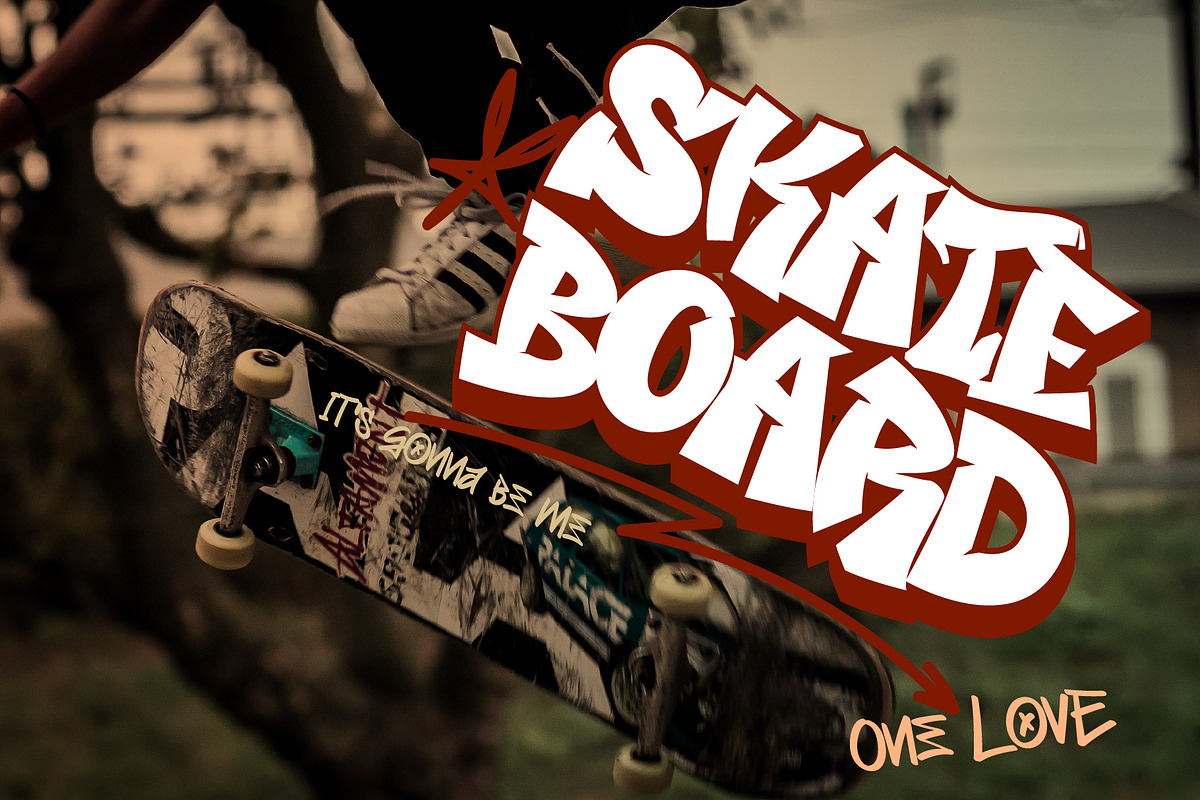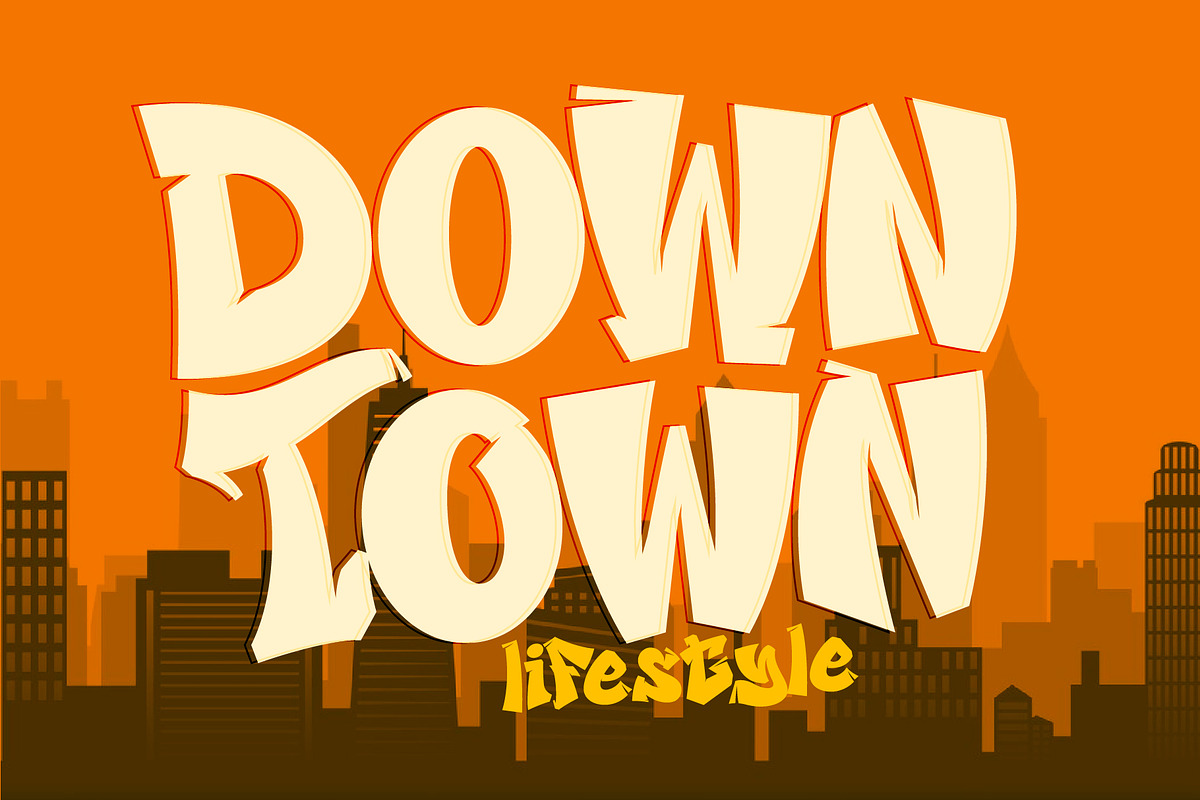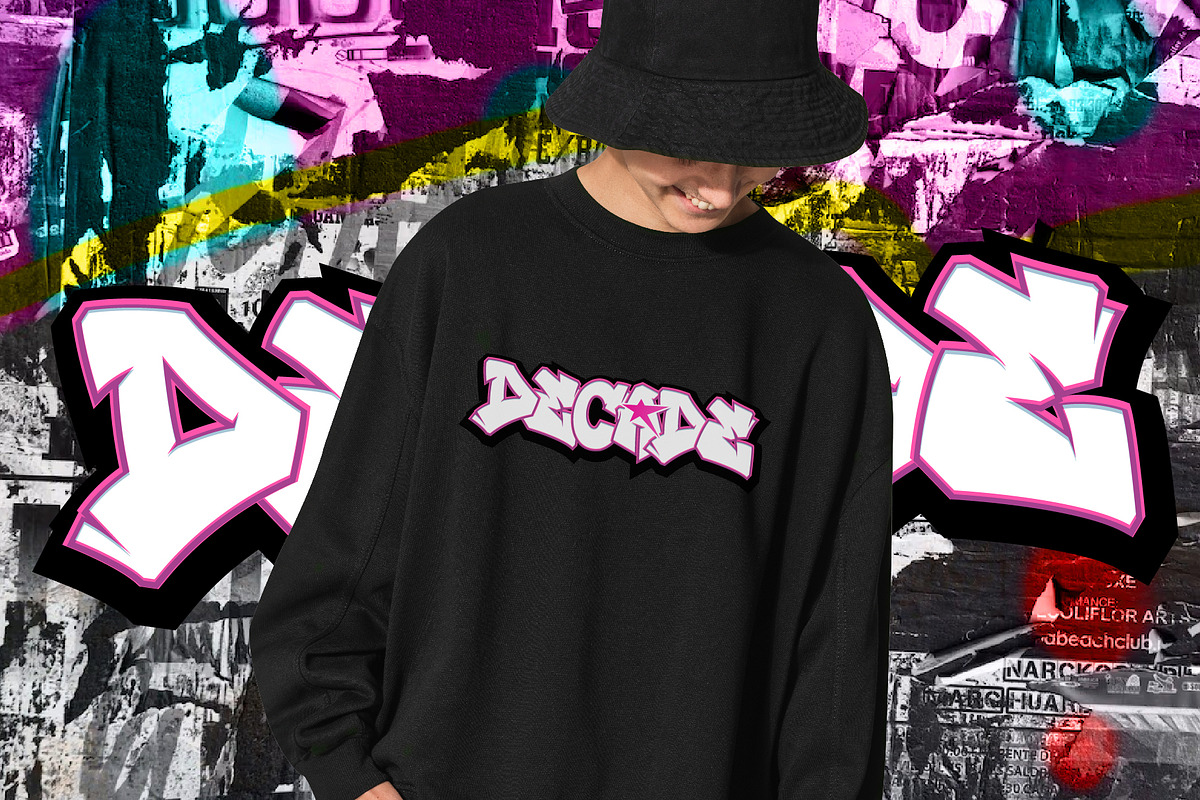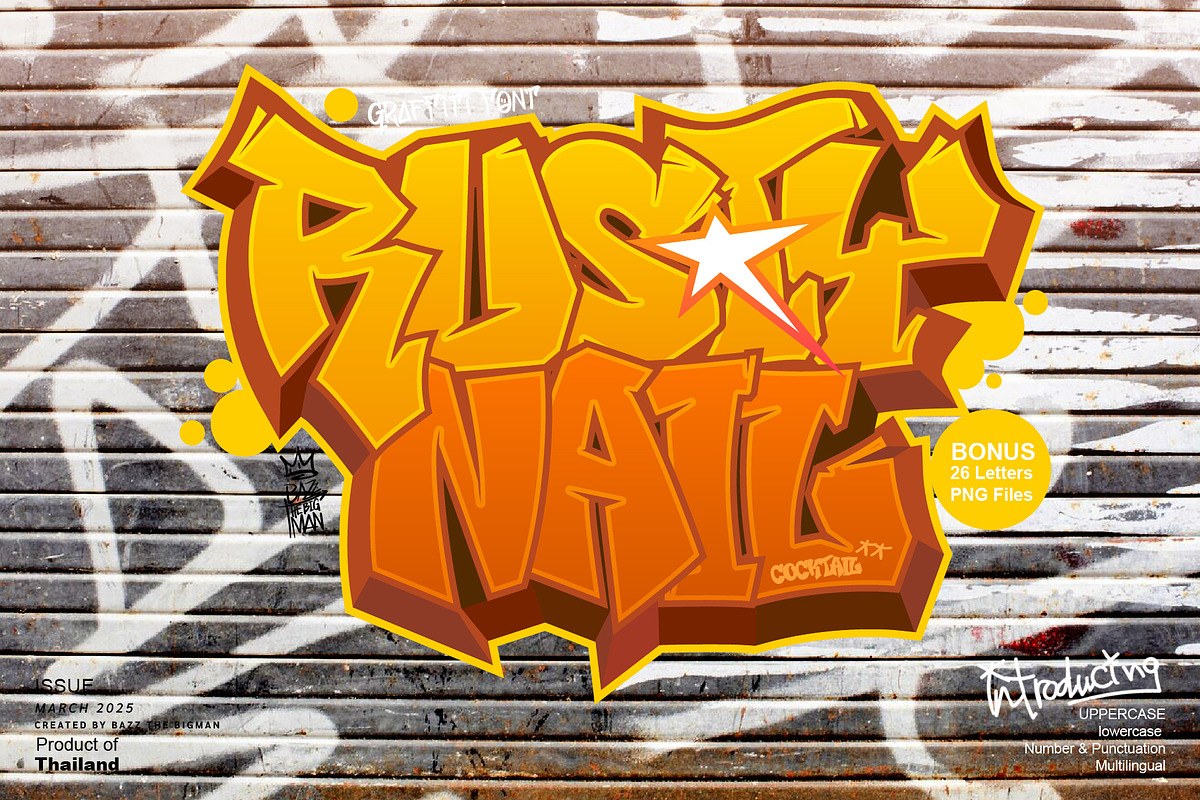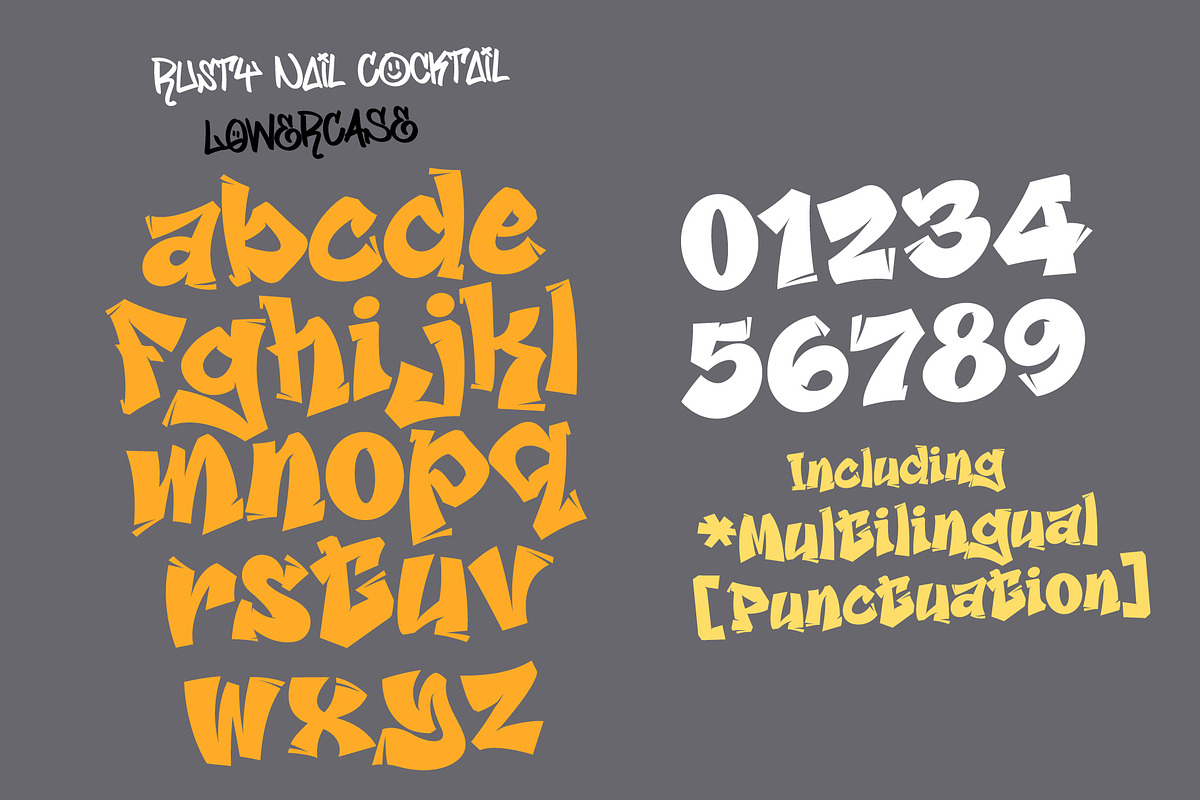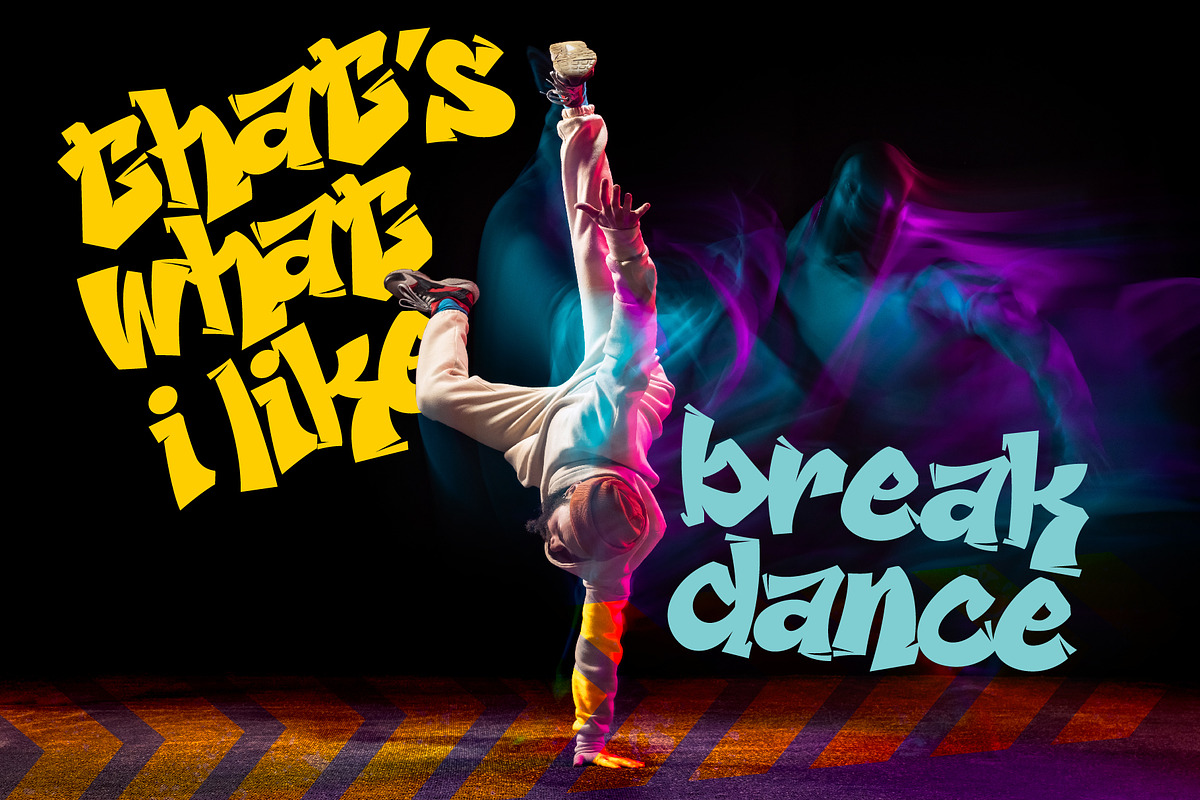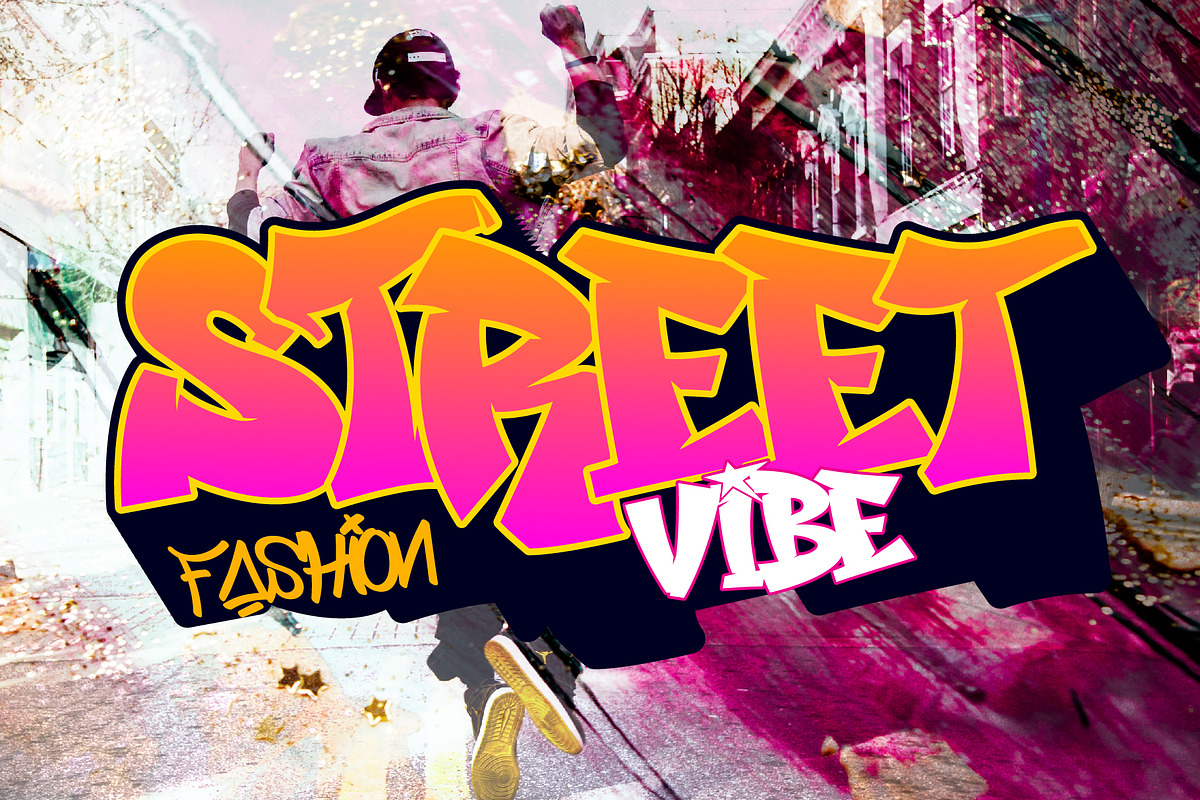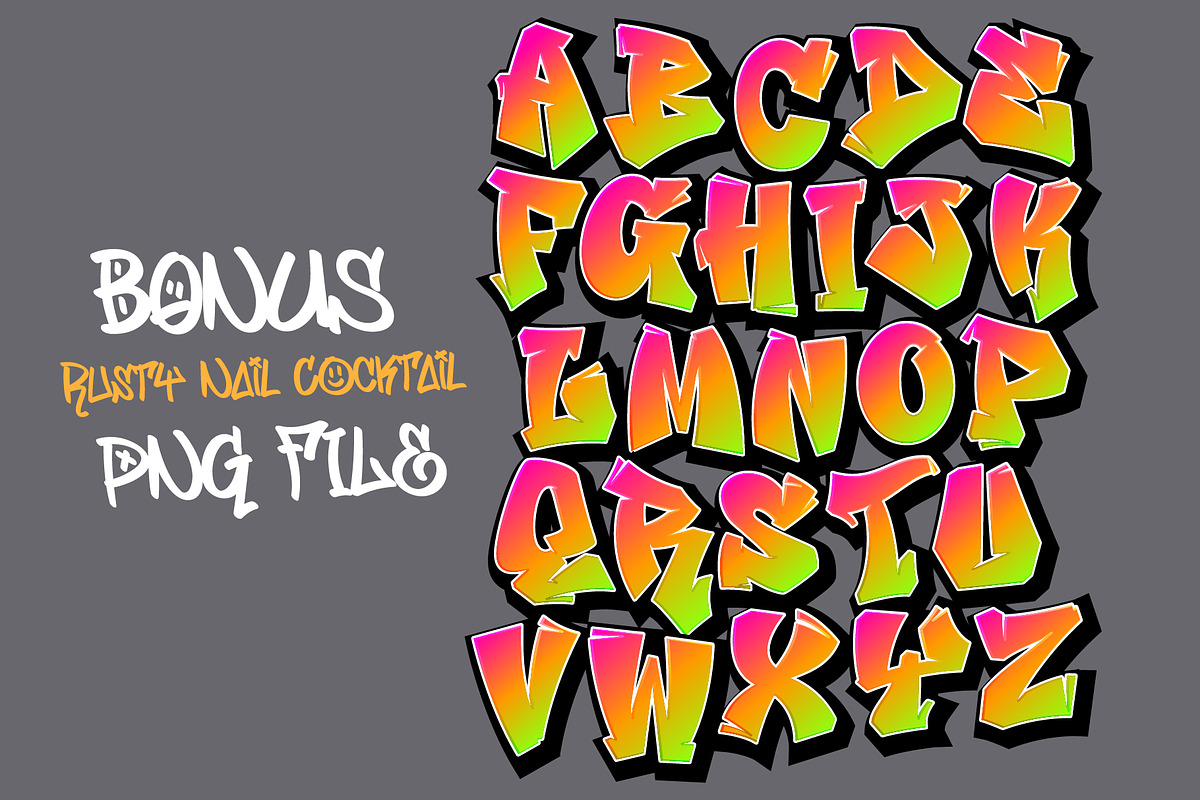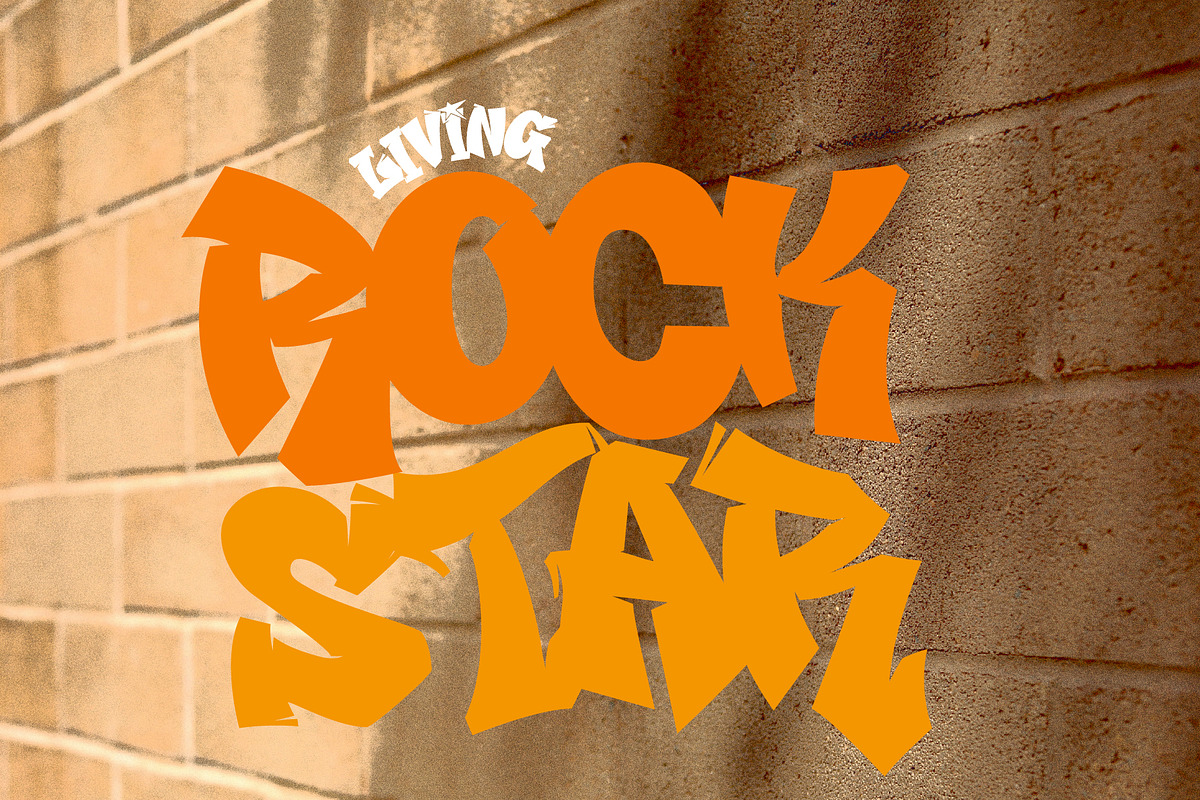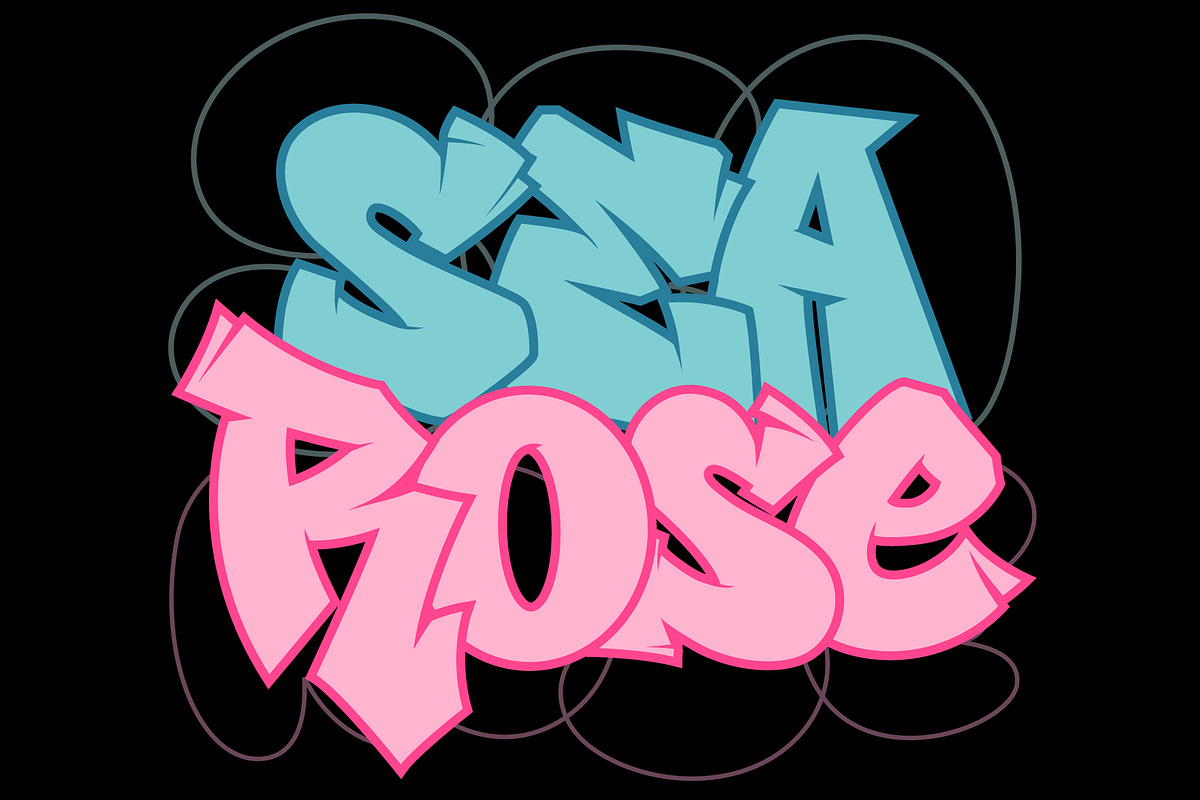
Rusty Nail Cocktail
Envelop your creative pursuits in the daring strokes of Rusty Nail Cocktail, a graffiti display font that exudes an extraordinary persona. Intricately crafted to spark your imagination, this remarkable font soars your artistic ideas to unprecedented pinnacles. Wield the boundless possibilities of Rusty Nail Cocktail and let every artistic ember bloom into a luminous work of art!